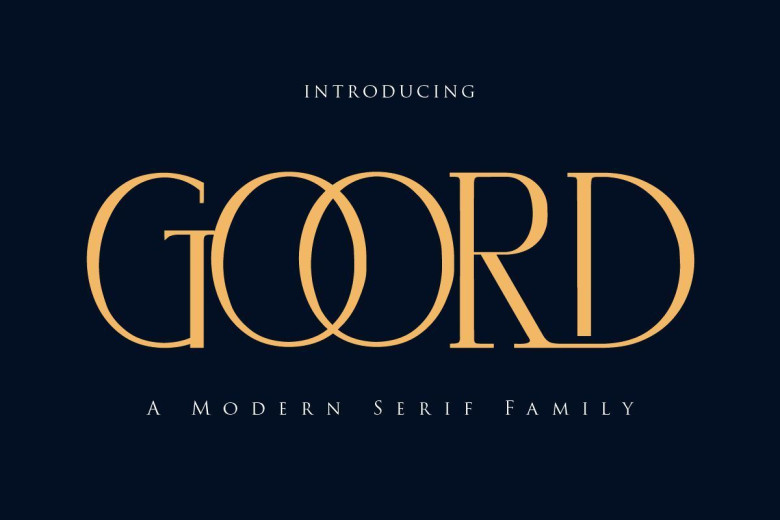
Goord Modern Serif Font
Goord Font is a clean modern serif font that was designed to create a minimalist design. This font contains over many glyphs also comes with alternates and ligatures to make your design looks unique and stylish.
Perfect for all your design needs like to create minimalist logos, posters, quotes, invitations cards, and many more. It will elevate any design project with its smart and timeless versatility.